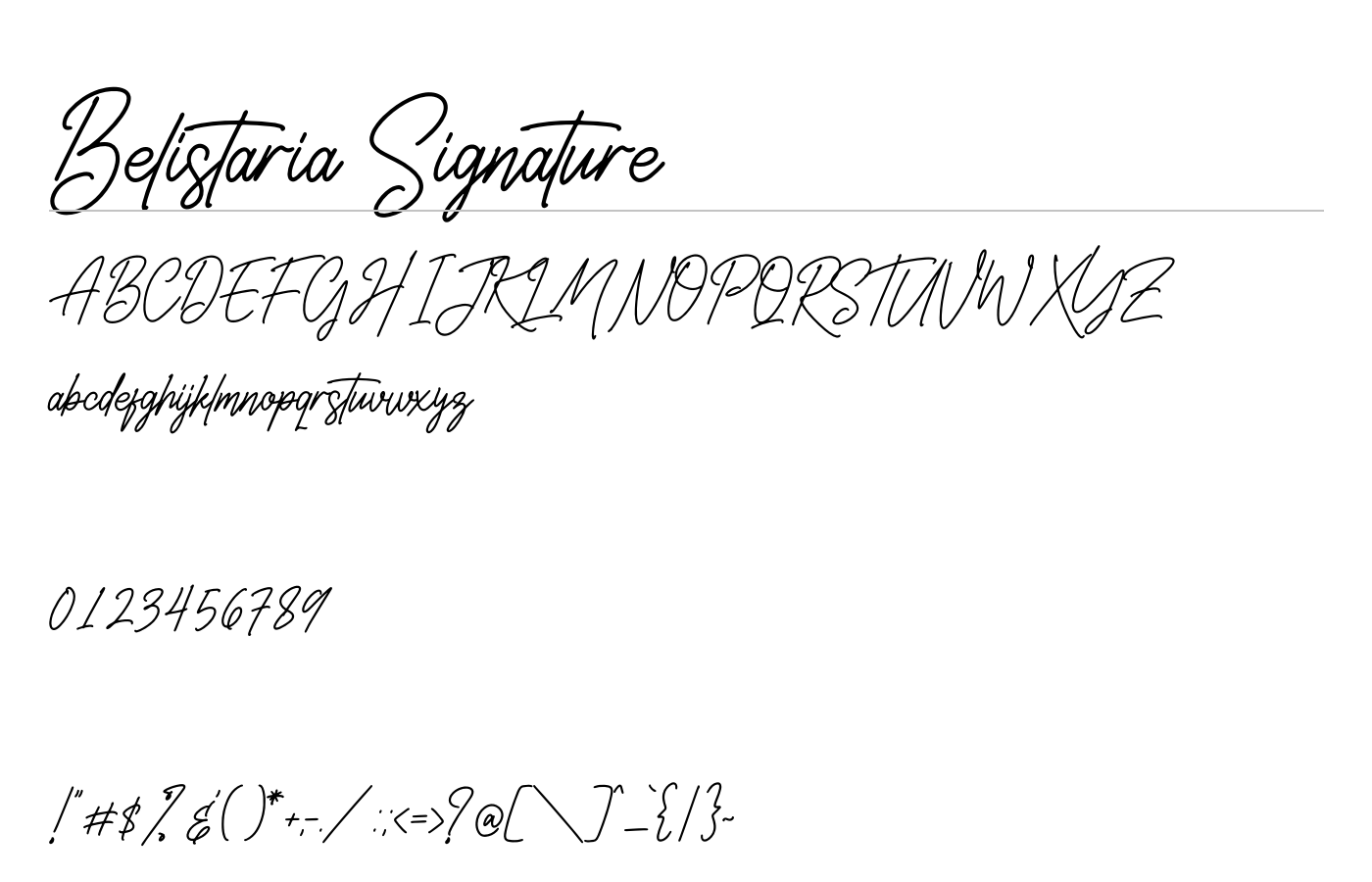
Belistaria Signature Font is a delicate, elegant script font with a handwritten, calligraphic style that mimics natural pen strokes. Its slender, flowing characters feature a high x-height and graceful, smooth curves, making it perfect for sophisticated branding, stylish logos, invitations, and editorial headlines where a personal and refined touch is desired. This font’s airy, light strokes and unique letterforms lend a modern yet timeless feel, ideal for fashion, beauty, or luxury projects seeking an intimate and artistic vibe.
Belistaria Signature Font
About Belistaria Signature Font